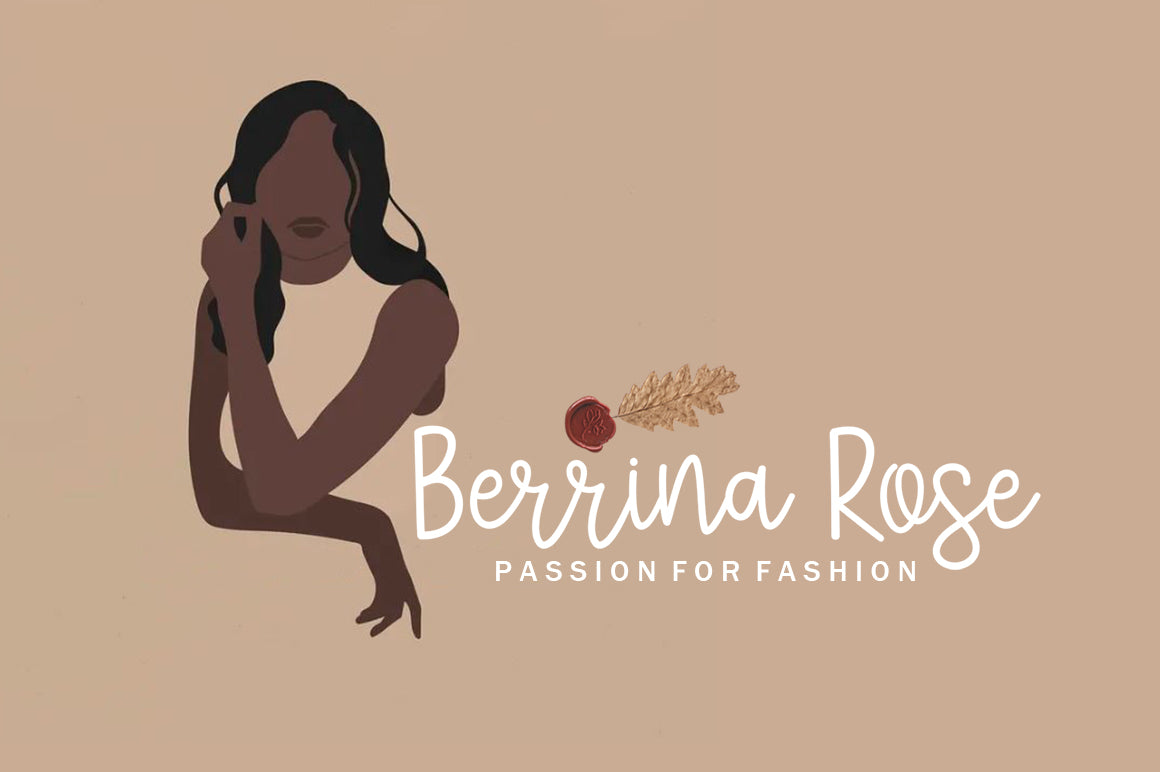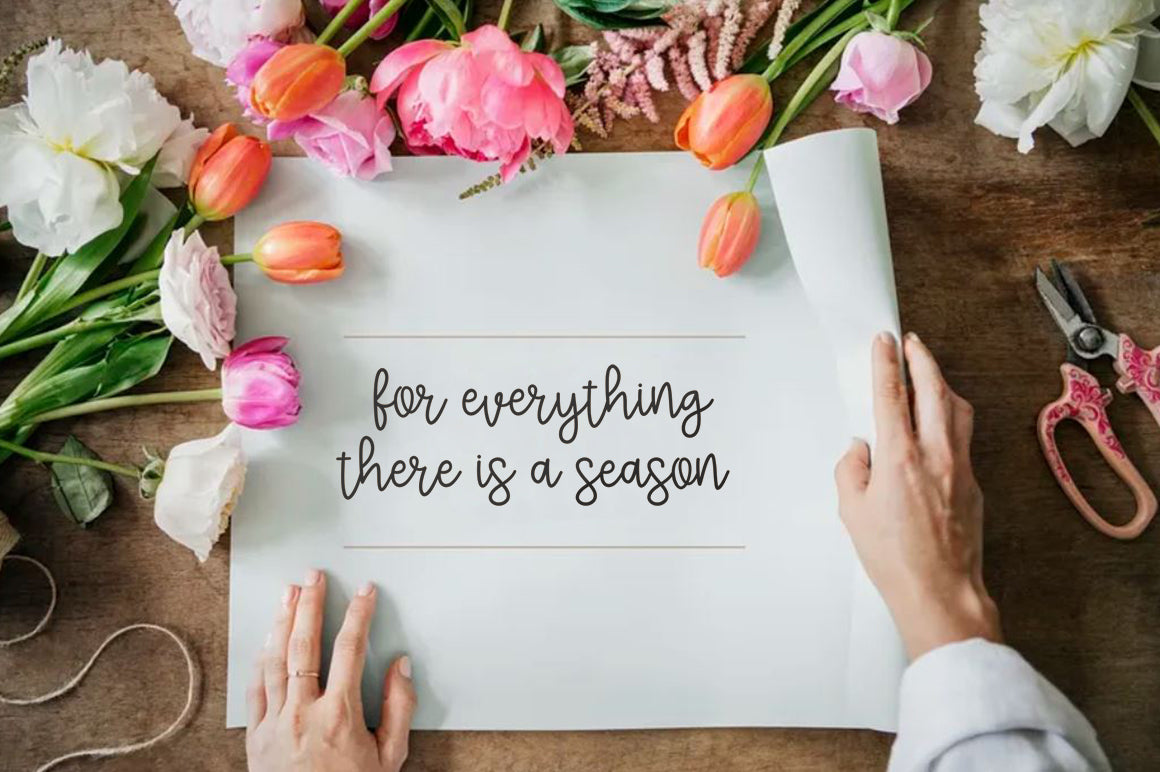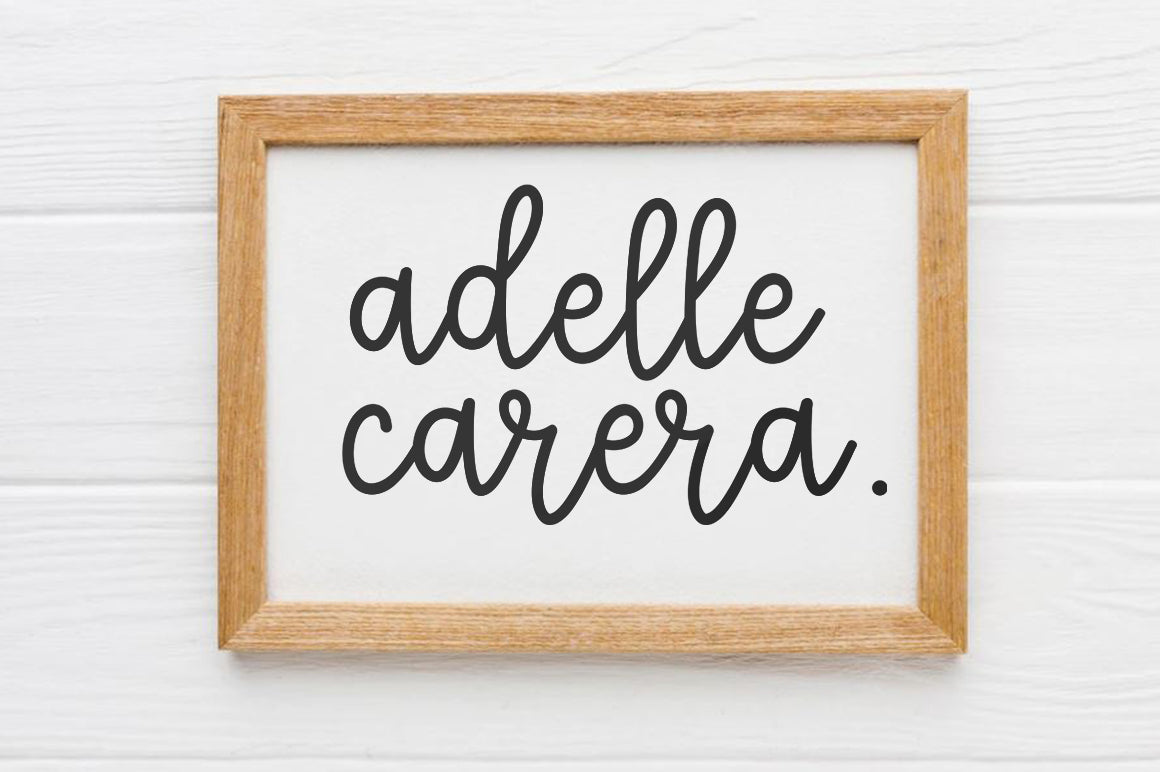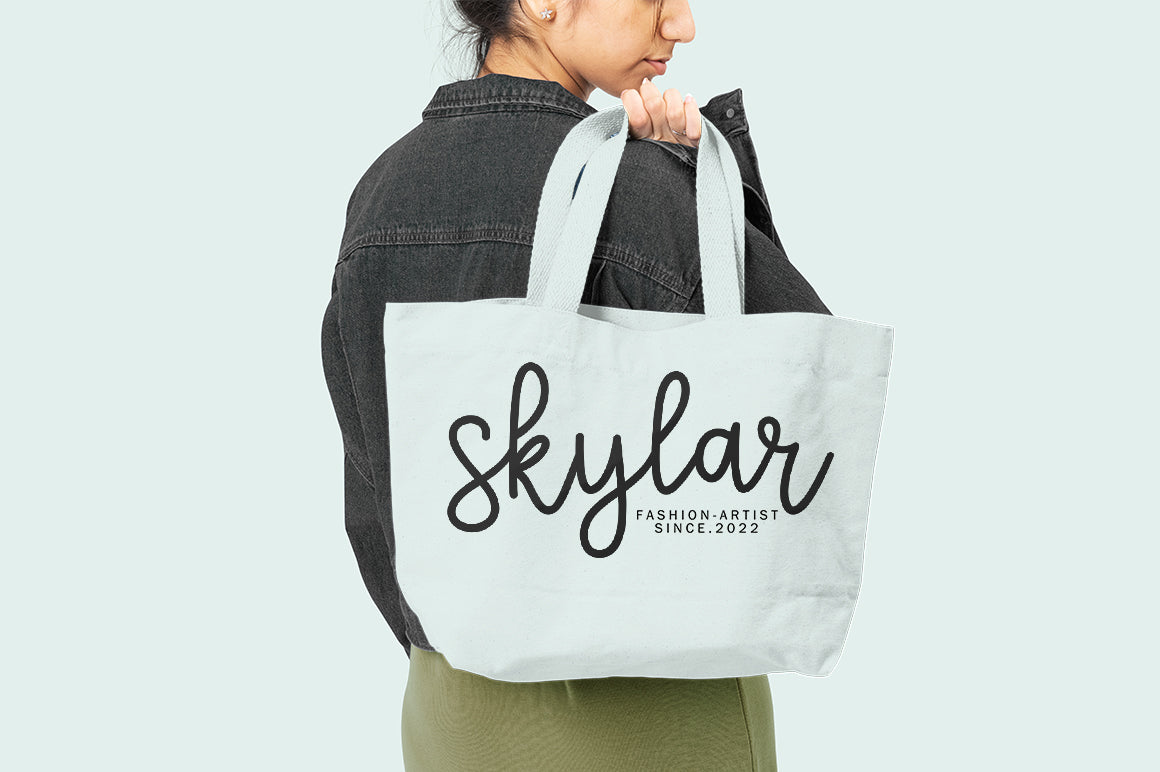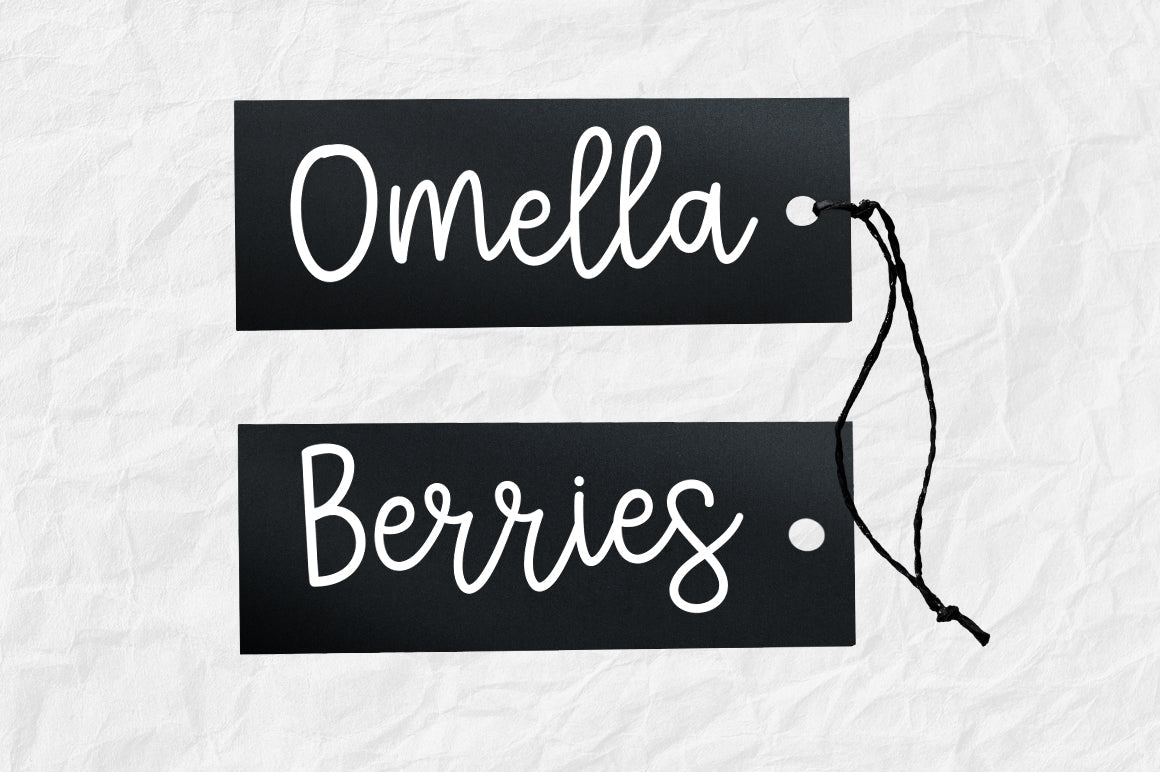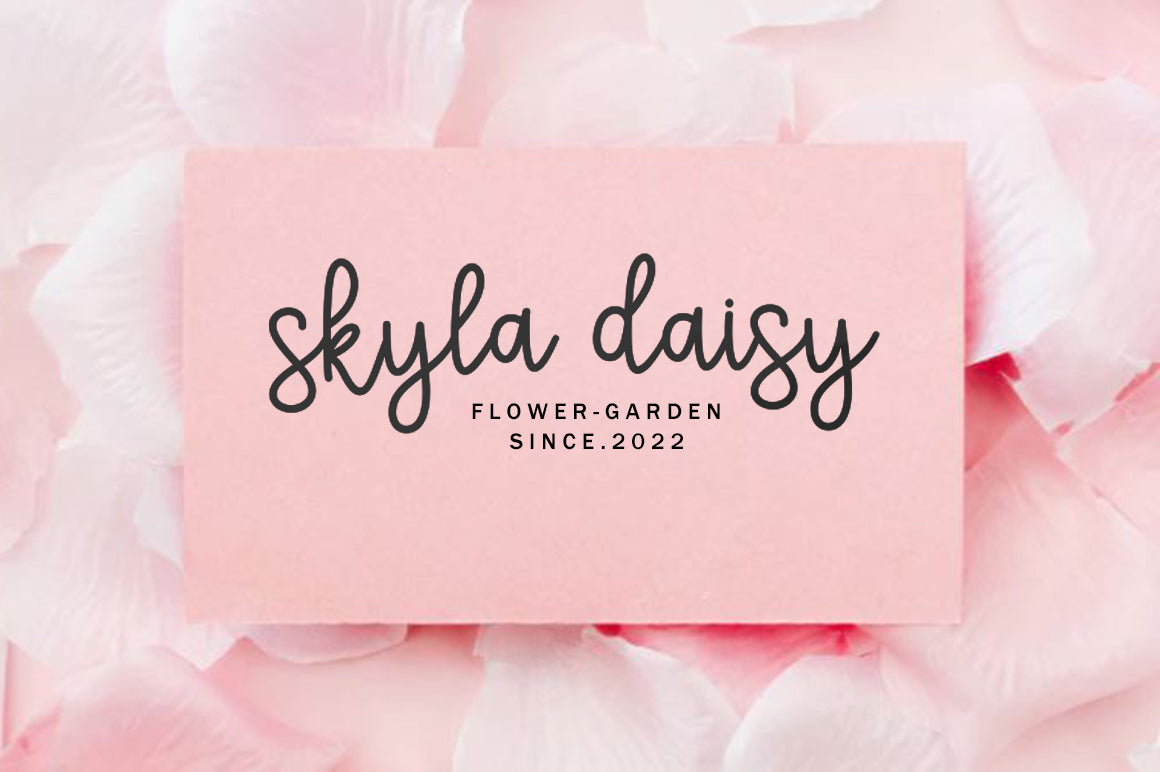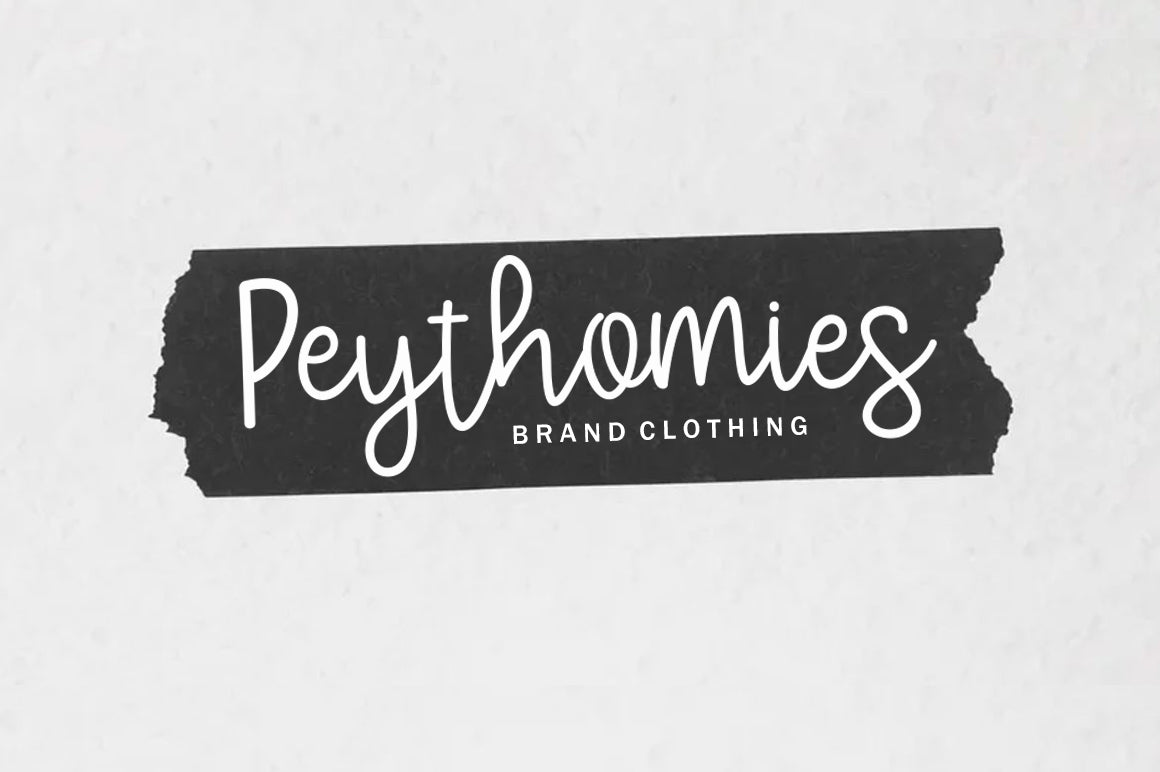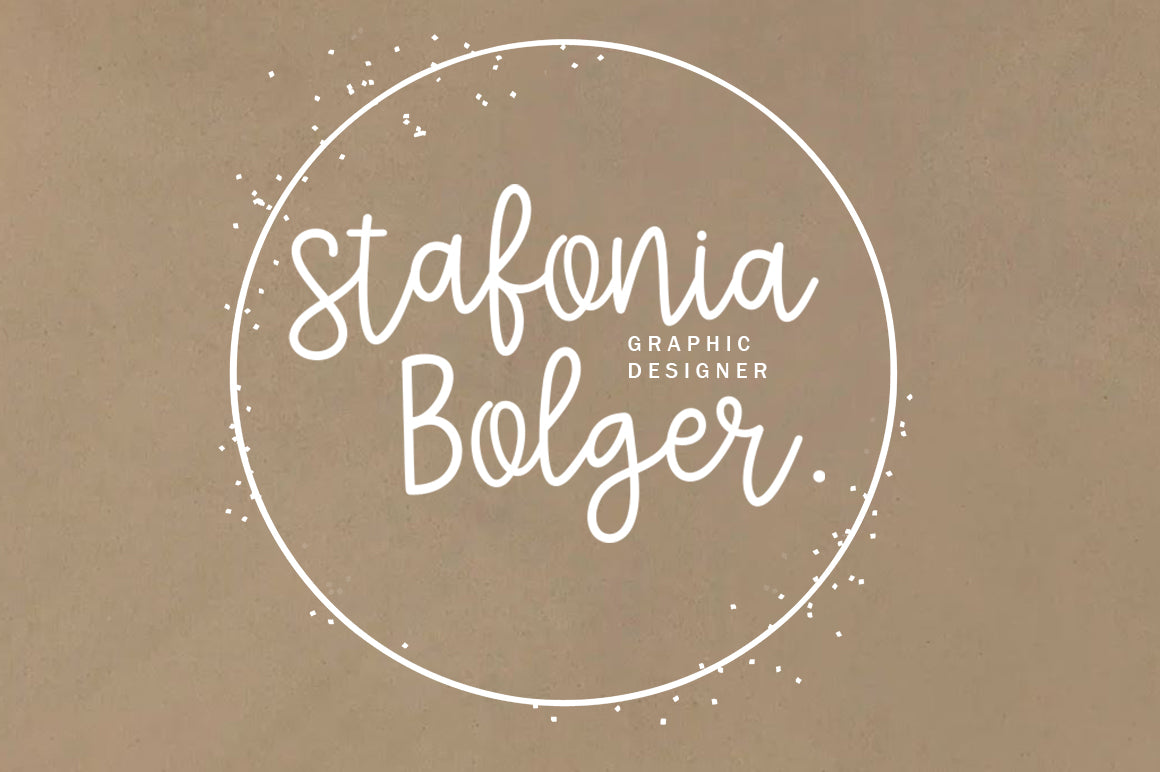
Astrologer – Handwritten Typefaces
About Astrologer – Handwritten Typefaces
Astrologer – Handwritten Typefaces Contains a complete set of lowercase, uppercase, alternative, ligatures, punctuation marks, numbers and multilingual support. This font is ideal for use in watercolor designs or hand bold styles, such as blog headers, posters, wedding elements, t-shirts, clothing, book covers, business cards, greeting cards, branding, merchandise, invitations and handmade quotes and more. again. again. Thank you 🙂